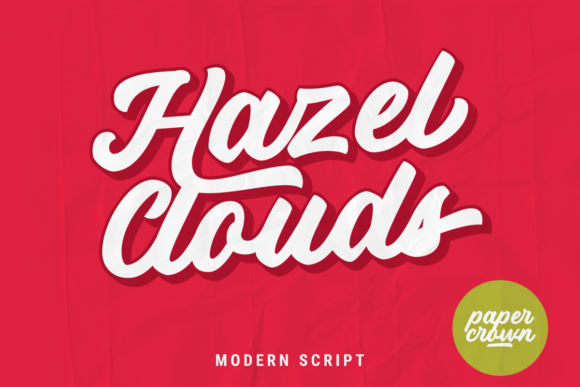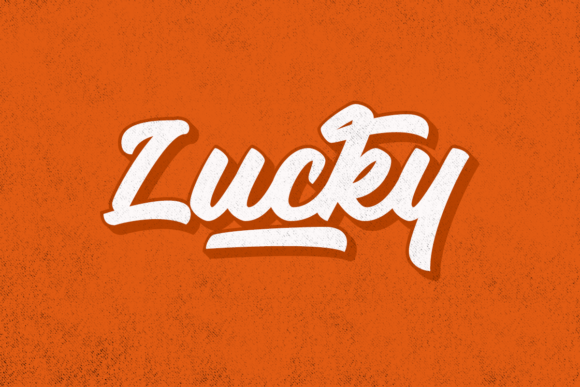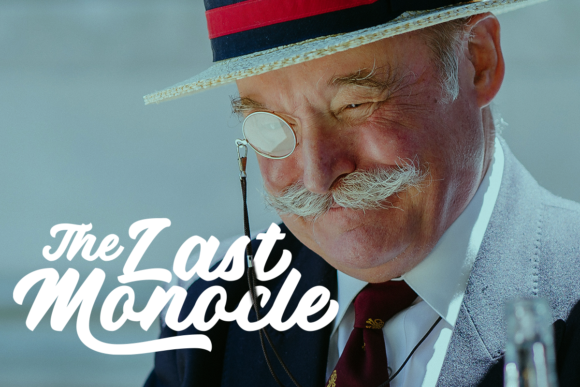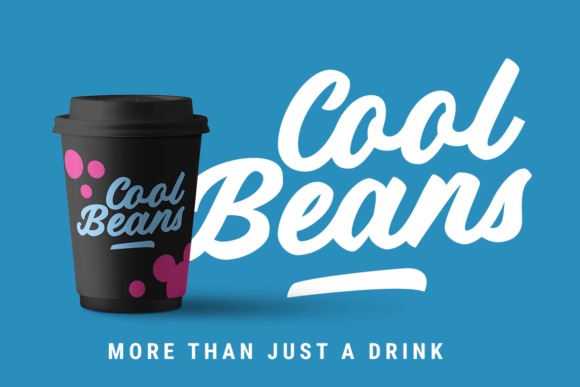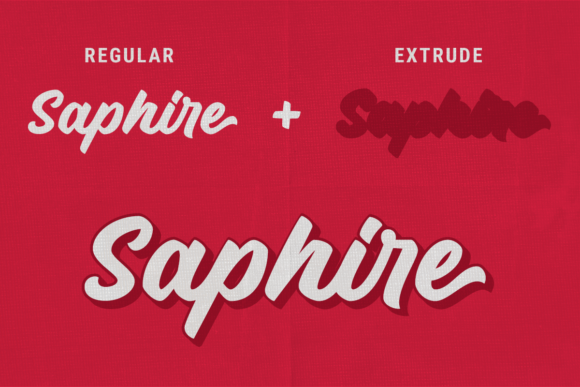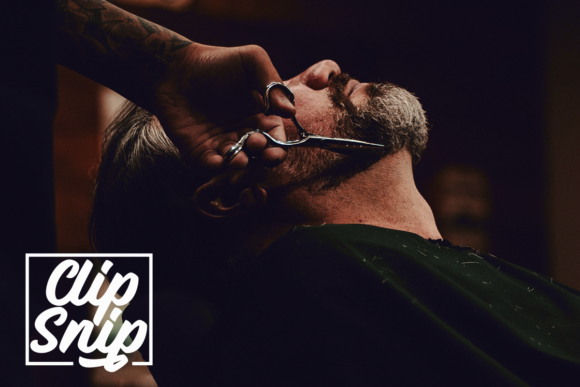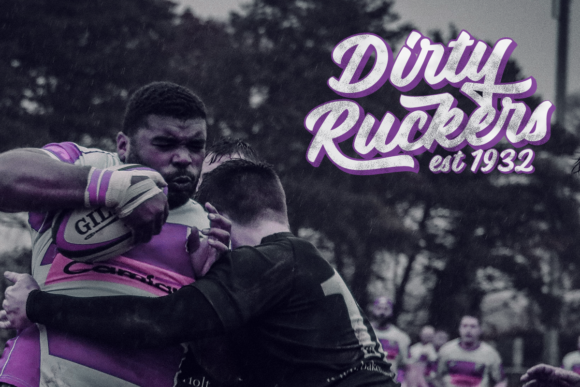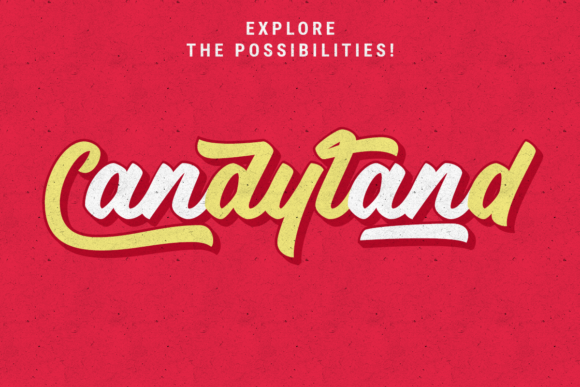
Hazel Clouds Font
About Hazel Clouds Font
Hazel Clouds is a modern script font. It is perfect for branding, headlines, logos, packaging and it comes with 9 stylistic alternates.